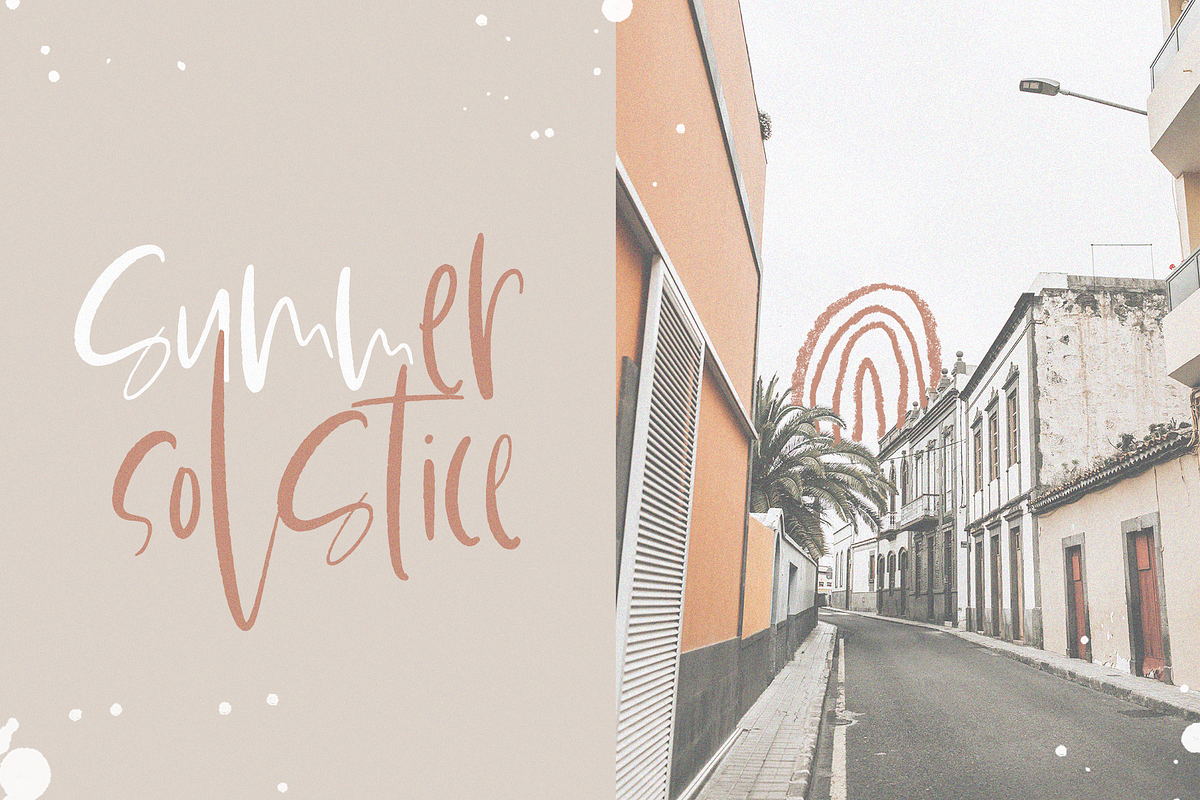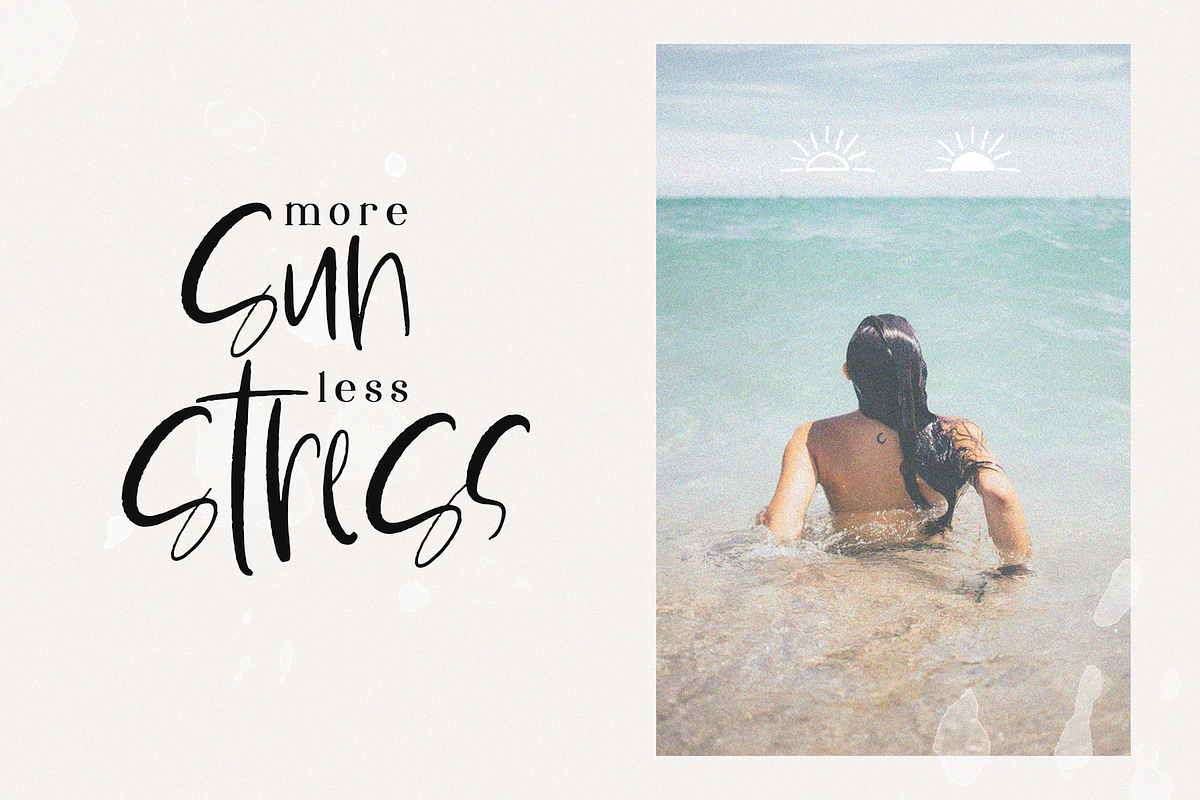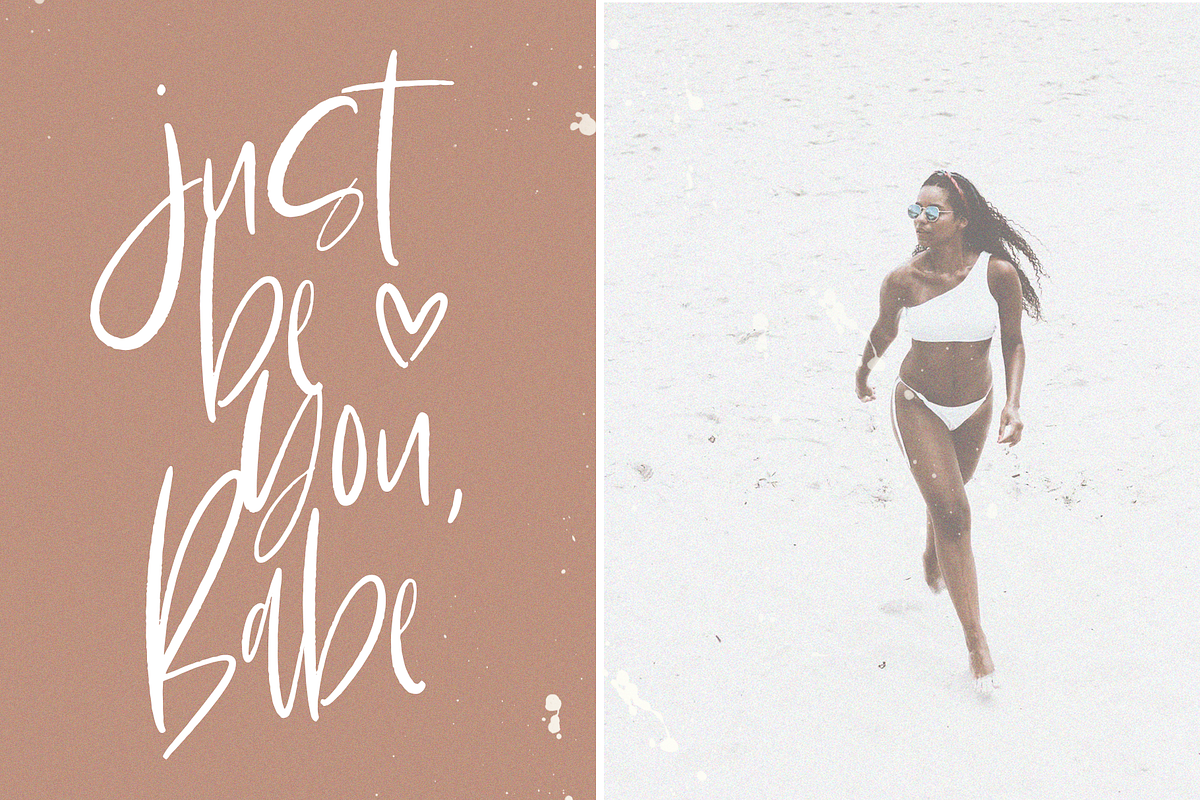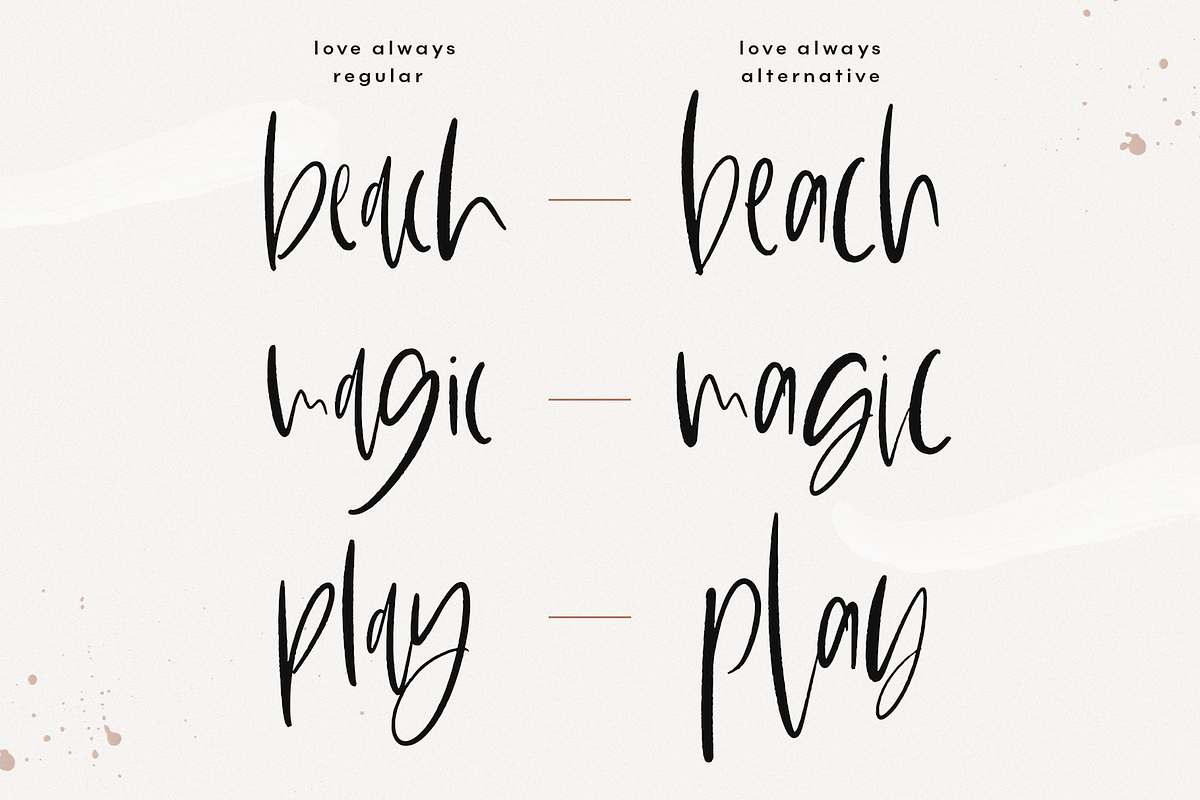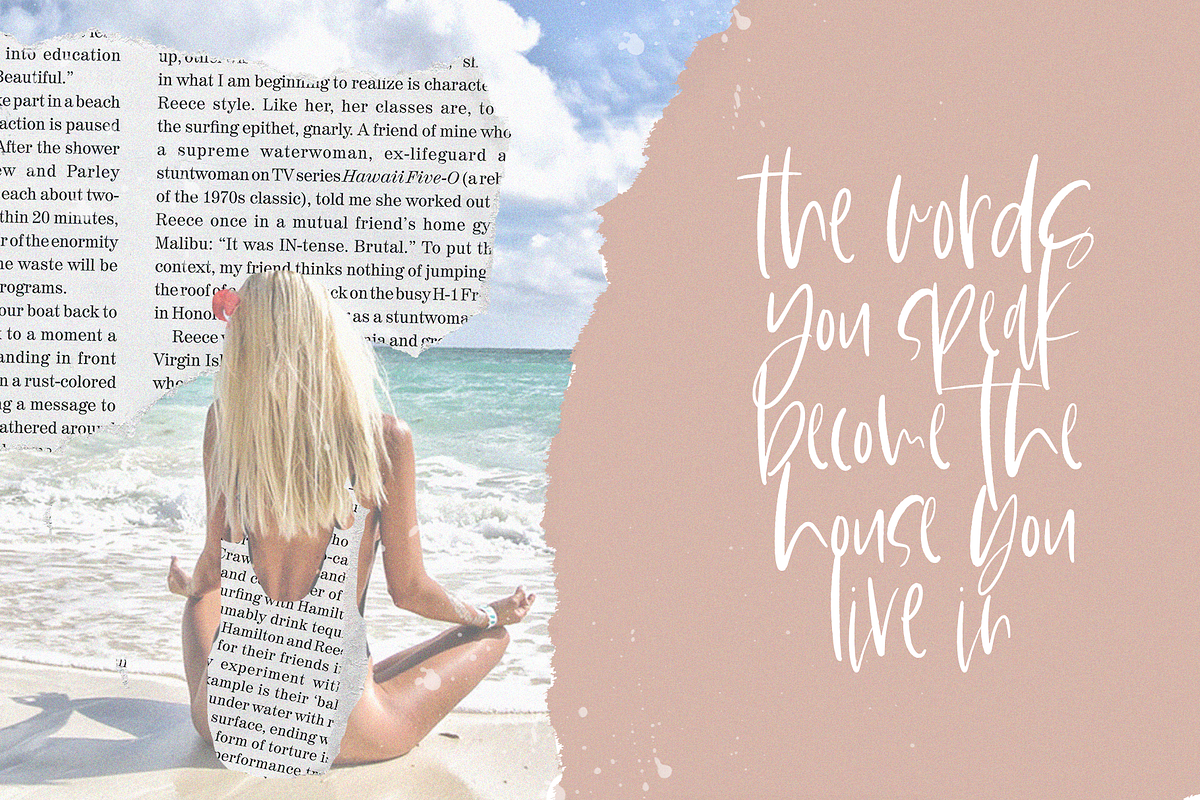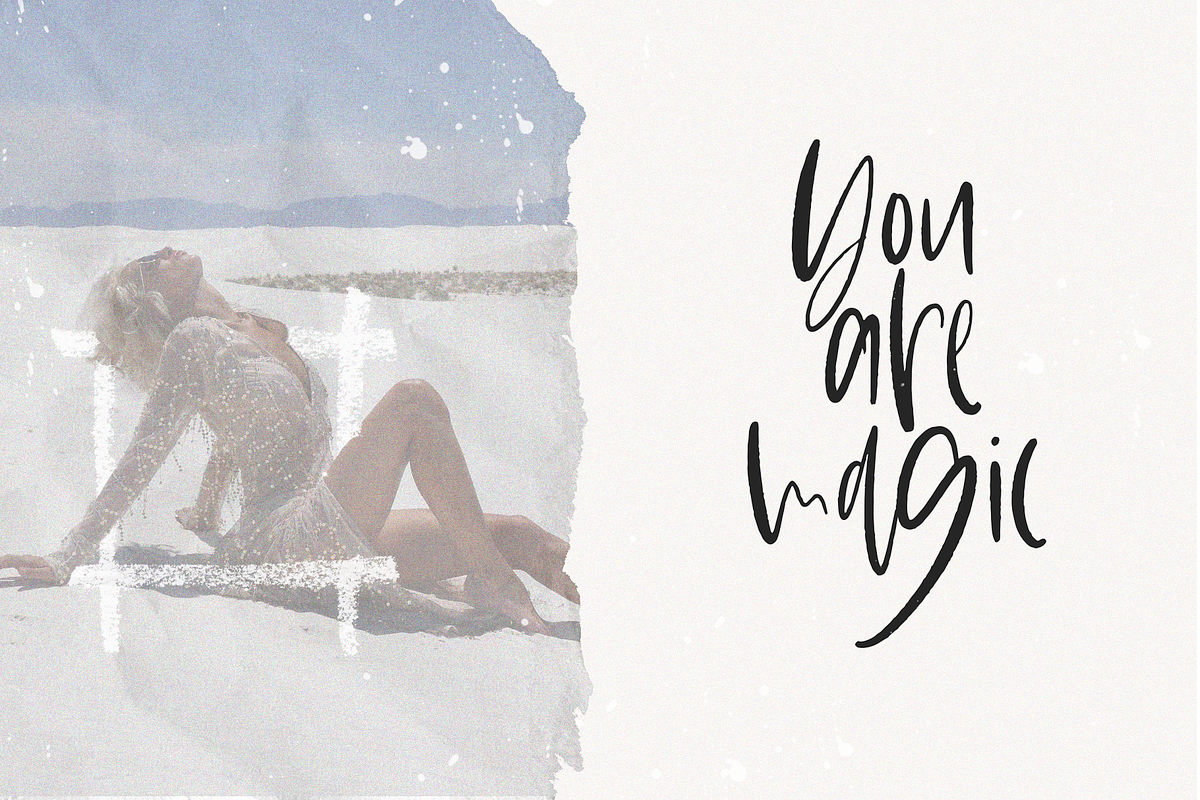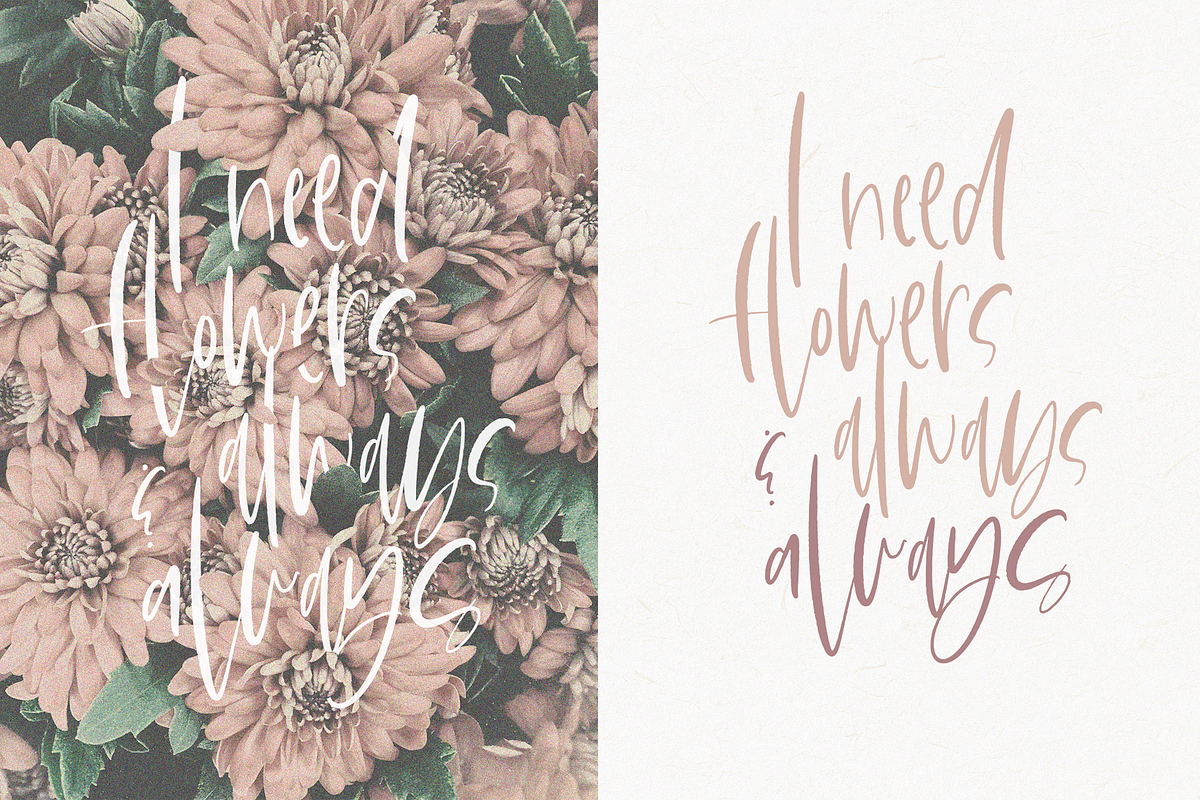
Love Always - Handwritten Font
Love Always is a chic & stylish, hand-lettered font. Inspired by bohemian style and modern culture. This font is perfect for branding, quotes, social media, blogs, logos, and more!
Love Always - The main font file. All of the ligatures and alternative letters are within this font.
Love Always Alt - An alternative set of lowercase letters, carefully picked from the main file.
Written with a brush pen, the texture shows through slightly.
There are so many different styles that you can create with this font!